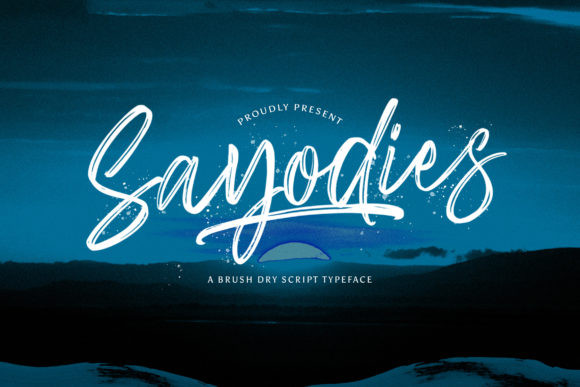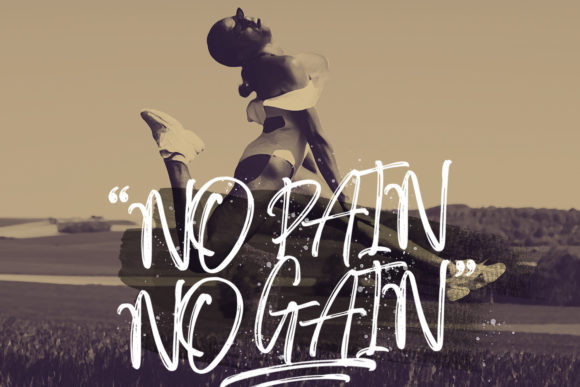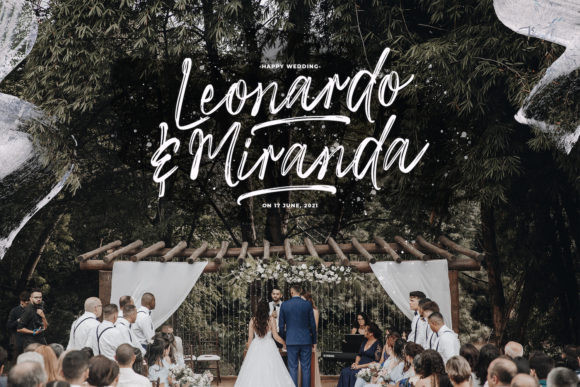
Sayodies Font
Sayodies is a flowing and elegant script font with a dry brush effect, created with the help of a brush pen. Get inspired by its unique and beautiful style and add it to your favorite designs.